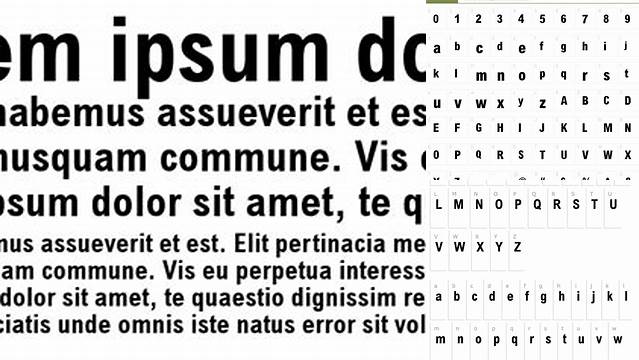
Understanding Arial Condensed Bold: A Deep Dive
Alright guys, let's talk about Arial Condensed Bold! If you're looking to download this font for free, you've come to the right place. We're going to break down what makes Arial Condensed Bold so popular and how you can get your hands on it without spending a dime. Think of Arial as that reliable, go-to font that's been around forever, kind of like your favorite pair of jeans â always fits, always looks good. Now, when you add condensed and bold to that mix, you get something really special. Condensed means the letters are narrower, packing more words onto a line without making the text feel cramped. Itâs perfect for headlines, captions, or any situation where you need to save space but still want maximum impact. Bold, well, that's pretty self-explanatory; it makes the text stand out, grabbing attention immediately. So, Arial Condensed Bold is your best friend when you need to be impactful and efficient with your layout. It strikes a fantastic balance, offering clarity and a strong visual presence. Whether you're designing a poster, a brochure, or just formatting a document for a presentation, this font can seriously elevate your game. It's versatile enough for professional settings but also has a clean, modern vibe that works for more creative projects too. We'll cover the best ways to find free downloads, essential tips for using it effectively, and some alternatives if you're feeling adventurous. Stick around, and by the end of this, you'll be a pro at using Arial Condensed Bold to make your designs shine!
Why Choose Arial Condensed Bold for Your Projects?
So, why exactly would you want to grab the Arial Condensed Bold font free download? Well, there are tons of reasons, and it all boils down to its killer combination of style and functionality. First off, let's talk about its aesthetic. Arial Condensed Bold has this clean, no-nonsense vibe thatâs incredibly versatile. Itâs not overly fussy or decorative, which means it works seamlessly across a huge range of applications. Need to create a killer headline for a website? Arial Condensed Bold is your guy. Designing a flyer for a local event? Perfect. Trying to make your presentation slides pop? You bet. The condensed nature of the font is a real space-saver, guys. This means you can fit more information onto a single line or a smaller space without making the text look squished or hard to read. Think about those tight newspaper columns or the limited real estate on a business card â this font is a lifesaver in those scenarios. Then you have the bold aspect. This isn't just a regular bold; it's a strong, confident bold that commands attention. It helps crucial information jump off the page, ensuring your message gets across loud and clear. It adds weight and presence, making sure your key points aren't overlooked. Plus, Arial is a universally recognized font. Most systems have it pre-installed, which means your designs will look consistent across different devices and platforms. This is a huge plus for professional projects where consistency is key. When you can download Arial Condensed Bold for free, you're essentially getting a premium design tool without the premium price tag. It's a fantastic way to enhance your visual communication, making your work look more polished and professional. Itâs the kind of font that doesnât shout for attention but subtly commands respect, making your content more engaging and readable. So, if you're aiming for clarity, impact, and a touch of modern sophistication, this font is definitely worth considering.
Using Arial Condensed Bold Effectively in Design
Now that you've got the Arial Condensed Bold font free download and it's installed, let's chat about how to use it like a pro, guys. This font is super versatile, but like any tool, knowing its strengths will help you get the best results. The primary superpower of Arial Condensed Bold is its ability to pack a punch in a small space. Its condensed nature means itâs perfect for headlines, subheadings, captions, and any text where you need to convey information clearly and concisely without taking up too much room. Think of magazine layouts, website banners, or even short, impactful calls to action. Because itâs bold, it naturally draws the eye. This makes it excellent for highlighting key pieces of information. Use it to emphasize a special offer, a date, a name, or a critical instruction. However, donât go overboard! Using bold text too frequently can actually make your entire design feel loud and cluttered, defeating the purpose. Reserve it for the most important elements.
Another great use case is pairing it with a lighter or regular-weight version of Arial, or even a completely different font. For instance, you could use Arial Condensed Bold for your main headline and then switch to a standard Arial or a complementary serif font for the body text. This creates visual hierarchy and makes your design more dynamic and engaging. The contrast between the condensed, bold headline and a more standard body text can be very pleasing to the eye. Remember the condensed aspect? It can sometimes make tracking (the spacing between letters) look a bit tight. In some design software, you can adjust the tracking manually to give the letters a little more breathing room if needed, especially for longer headlines. This is often found under advanced typography settings. Don't be afraid to experiment! Try using Arial Condensed Bold in different sizes and contexts. See how it looks in all caps versus title case. Play around with color to make it pop even more. Ultimately, the goal is to use this font to enhance readability and impact. It's a workhorse font that, when used thoughtfully, can make your designs look incredibly professional and put-together. So, go ahead, give it a spin and see how it transforms your layouts!